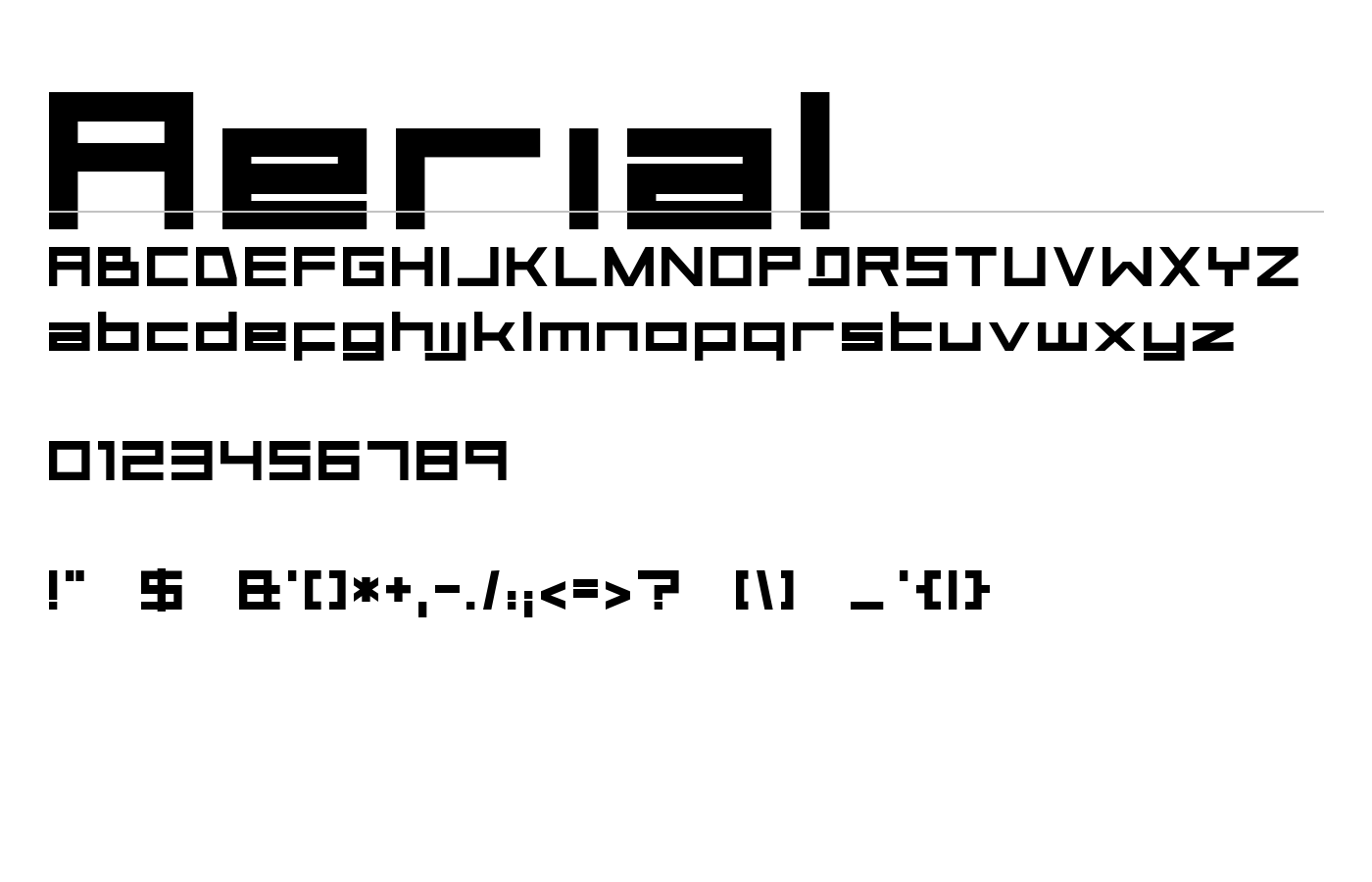
Aerial is a bold, geometric sans serif font with a futuristic, digital feel thanks to its sharp angles and square letterforms. Its uniform stroke weight and tight spacing give it a compact, modern look ideal for tech, gaming, or sci-fi branding and headlines that need a strong, striking presence. This font works best in display uses where its unique, edgy style can stand out clearly.
Aerial Font
About Aerial Font